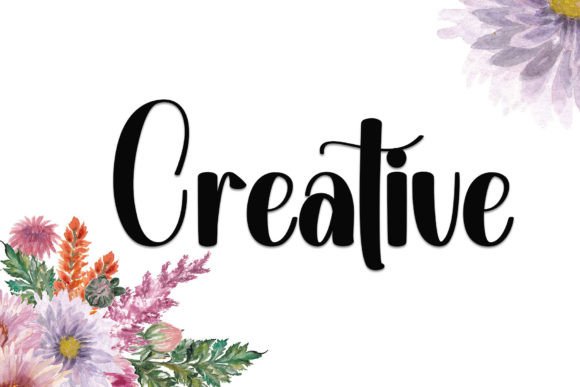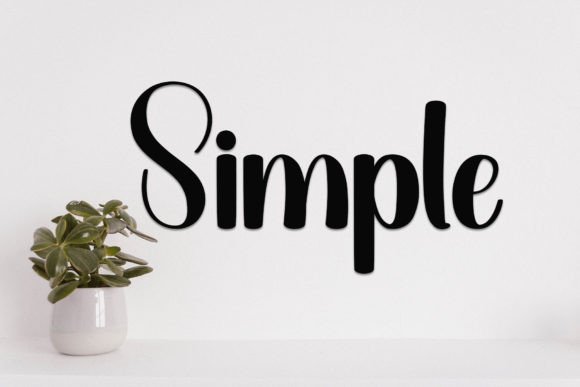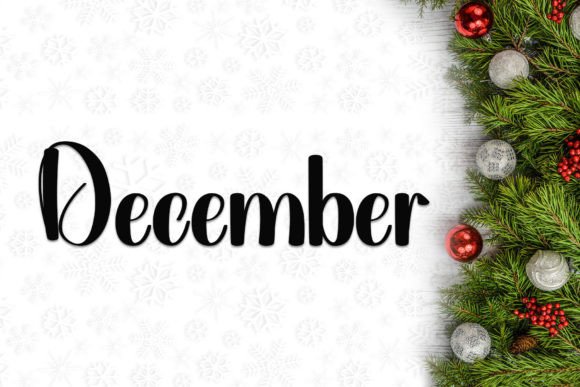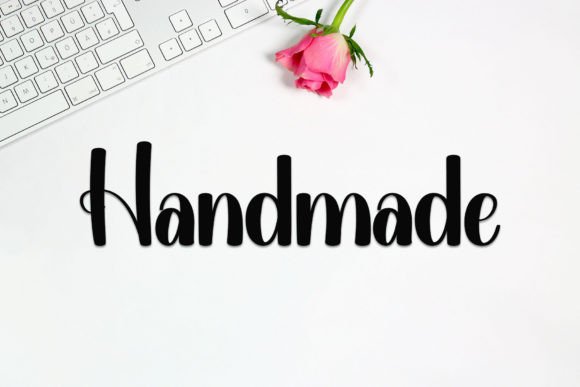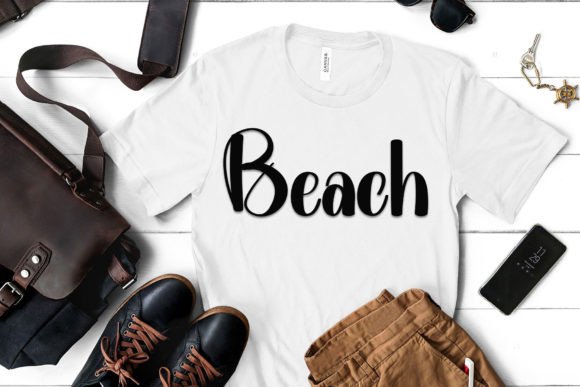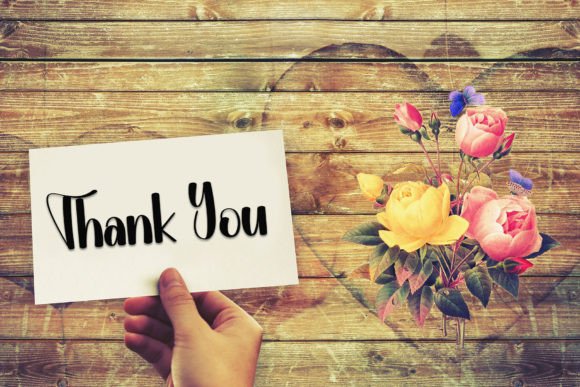
Bathroom Font: Elevate Your Designs with a Touch of Timeless Elegance
Are you tired of using the same old fonts in your designs? Do you want to add a touch of sophistication and elegance to your projects? Look no further than the Bathroom Font, a stylish handwritten font that is sure to take your designs to the next level. Inspired by timeless classic calligraphy, this font boasts a contemporary atmosphere and impeccable form, making it perfect for designers and crafters looking to add a touch of luxury to their work.
A Font that Exudes Balance and Variety
The Bathroom Font is a masterclass in balance and variety. With its carefully crafted letters and ligatures, this font is designed to enhance the beauty of your projects. Whether you’re working on a logo, a poster, or a website, this font is sure to add a touch of elegance and sophistication. The font’s PUA encoding also means that you can access all of the amazing glyphs and ligatures with ease, giving you complete creative control over your designs.
What Makes Bathroom Font So Special?
So, what sets the Bathroom Font apart from other fonts on the market? Here are just a few of the features that make it a standout:
- Timeless classic calligraphy inspiration: The Bathroom Font is inspired by the timeless elegance of classic calligraphy, giving it a sophisticated and refined feel.
- Contemporary atmosphere: Despite its classic inspiration, the Bathroom Font has a distinctly contemporary feel, making it perfect for modern designs.
- Impeccable form: Every letter and ligature in the Bathroom Font has been carefully crafted to ensure that it is perfectly formed and balanced.
- PUA encoding: The font’s PUA encoding means that you can access all of the amazing glyphs and ligatures with ease, giving you complete creative control over your designs.
The Bathroom Font is perfect for designers and crafters who want to add a touch of elegance and sophistication to their work. Whether you’re working on a logo, a poster, a website, or any other type of design project, this font is sure to be a great choice. Here are just a few examples of how you can use the Bathroom Font:
- Logos and branding: The Bathroom Font is perfect for creating elegant and sophisticated logos and branding materials.
- Posters and flyers: Add a touch of luxury to your posters and flyers with the Bathroom Font.
- Websites and blogs: Use the Bathroom Font to add a touch of elegance and sophistication to your website or blog.
- Stationery and invitations: The Bathroom Font is perfect for creating beautiful and elegant stationery and invitations.